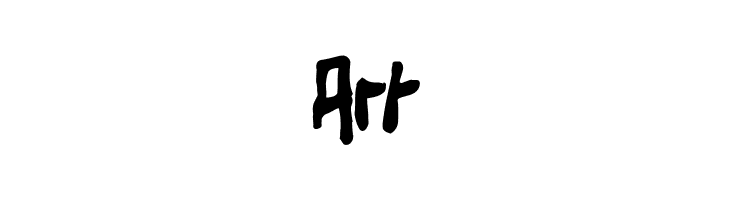
A playful, rounded font with smooth curves and consistent stroke width.
A bold, geometric font with tall, narrow letters and sharp angles.
A lively, expressive handwritten font with dynamic strokes.
A bold, brush-style font with a rough, expressive texture.
A playful, hand-drawn font with tall, narrow letters and consistent stroke width.
A whimsical, hand-drawn font with decorative swirls and textured hatching.
A whimsical, hand-drawn font with elongated, artistic characters.
A whimsical and artistic font with playful curls and elegant embellishments.
A playful, crayon-like font with a hand-drawn, textured appearance.
A playful, casual handwritten font with a relaxed, flowing style.
A whimsical, decorative font with charming swirls and curls.
A bold, playful font with a chunky, hand-drawn style.
A playful, Art Deco-inspired font with tall, slender characters and a whimsical touch.
A lively and dynamic handwritten font with fluid strokes.
A playful, handwritten font with bold, rounded characters.
A playful, rounded font with a bold and friendly appearance.
A playful, casual handwritten font with irregular strokes and a lively appearance.
A bold, hand-drawn font with an expressive and dynamic style.
A playful, handwritten font with a casual and whimsical style.
A whimsical, handwritten font with tall, narrow letters and a playful style.
A playful, hand-drawn font with a bold, three-dimensional effect.
A bold, geometric font with sharp, angular characters.
A playful, casual handwritten font with uneven strokes and a friendly appearance.
A bold, hand-drawn 3D font with a playful, artistic style.
A whimsical and decorative font with elaborate curls and swirls.
A medieval-inspired font with calligraphic, decorative elements.
A bold, distressed font with a grunge texture and rugged appearance.
( Fonts by David Kerkhoff - www.hanodedphotography.com )
A playful, hand-drawn font with tall, narrow letterforms and a whimsical style.
A playful, handwritten font with tall, narrow characters and a whimsical style.
A playful, hand-drawn font with a whimsical and dynamic style.
A bold, distressed font with a hand-painted, artistic style.